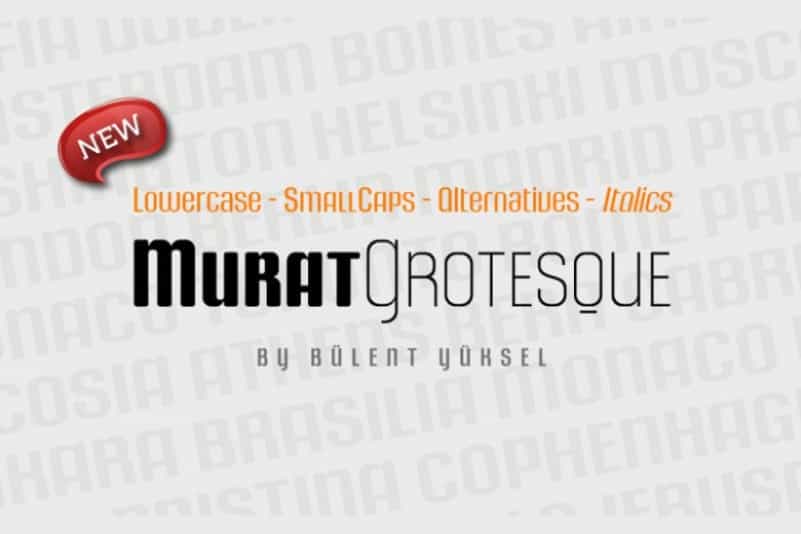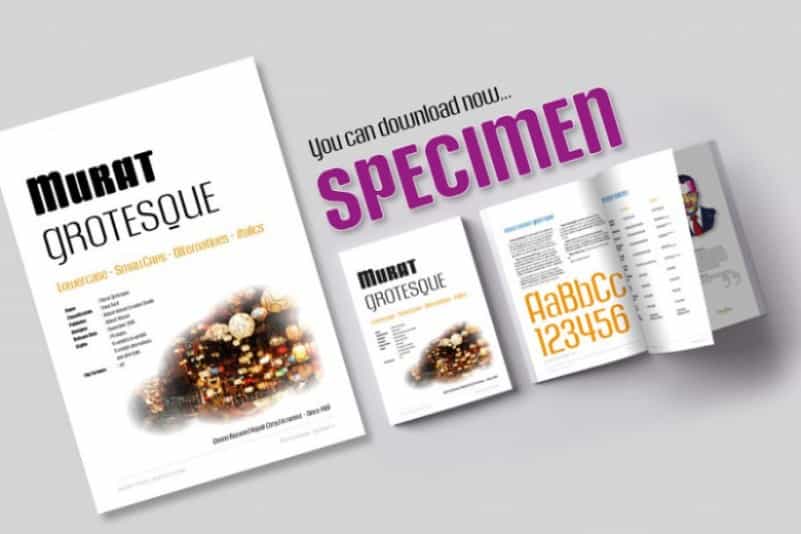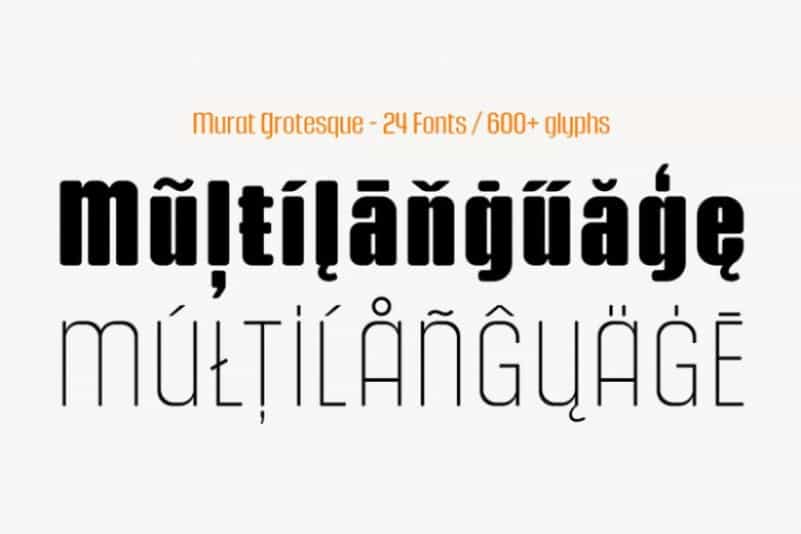
The Murat Grotesque Sans Serif Font Family is a tall, condensed sans-serif font that looks very impressive. If you want a thick lettering with as many precise differences in the ligatures and options to select from as possible, then this font family is exactly what you might be looking for. Corners were rounded for better reading while all glyphs had been altered completely for improved clarity following the inspiration that the logo “Impact”.